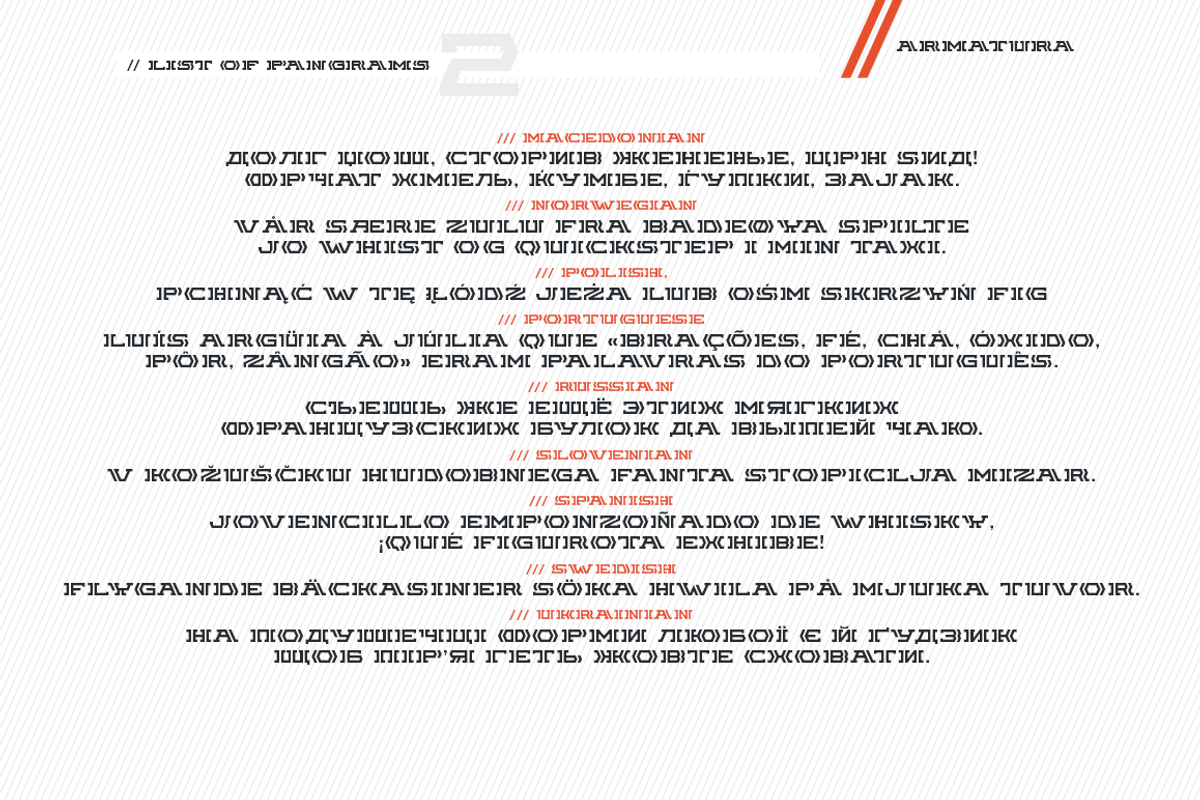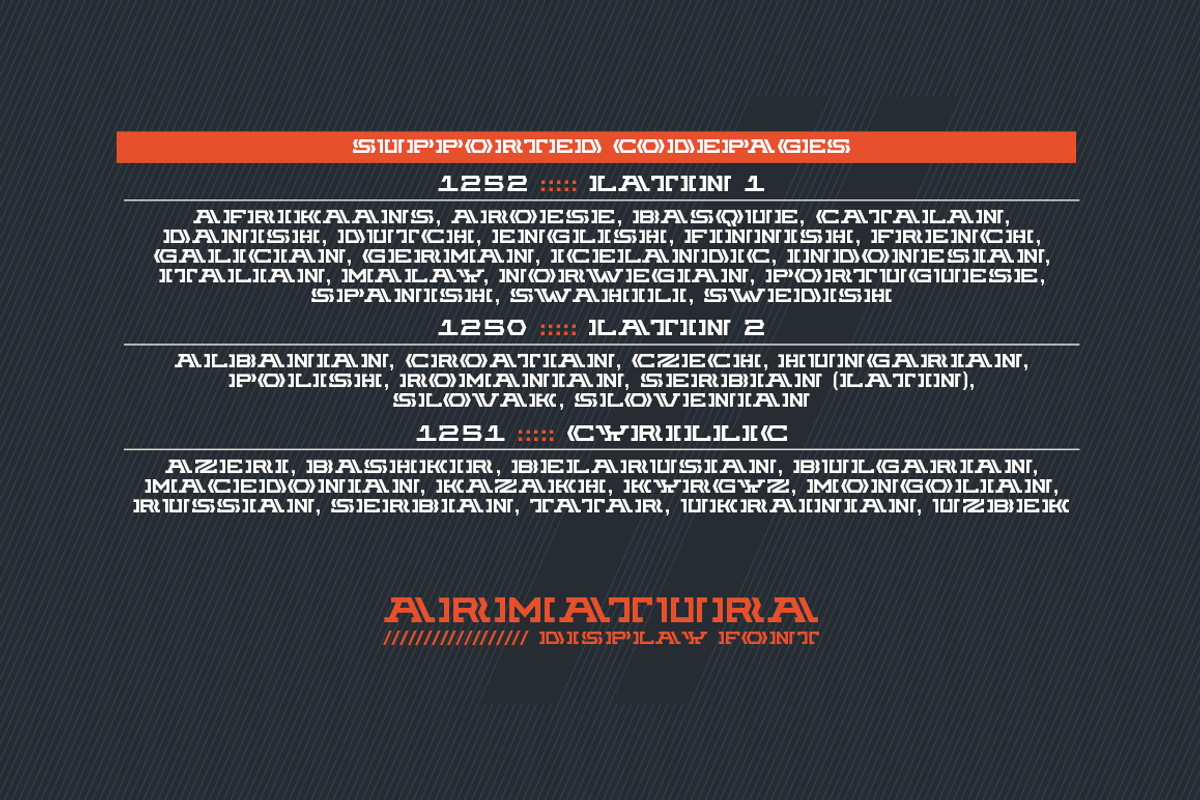
Armatura
Armatura is the all caps display font with heavy weight and wide proportions. Armatura works well for headlines, logotypes and corporate identity for certain lines of business, for example: construction, transport, engineering,sports, etc //